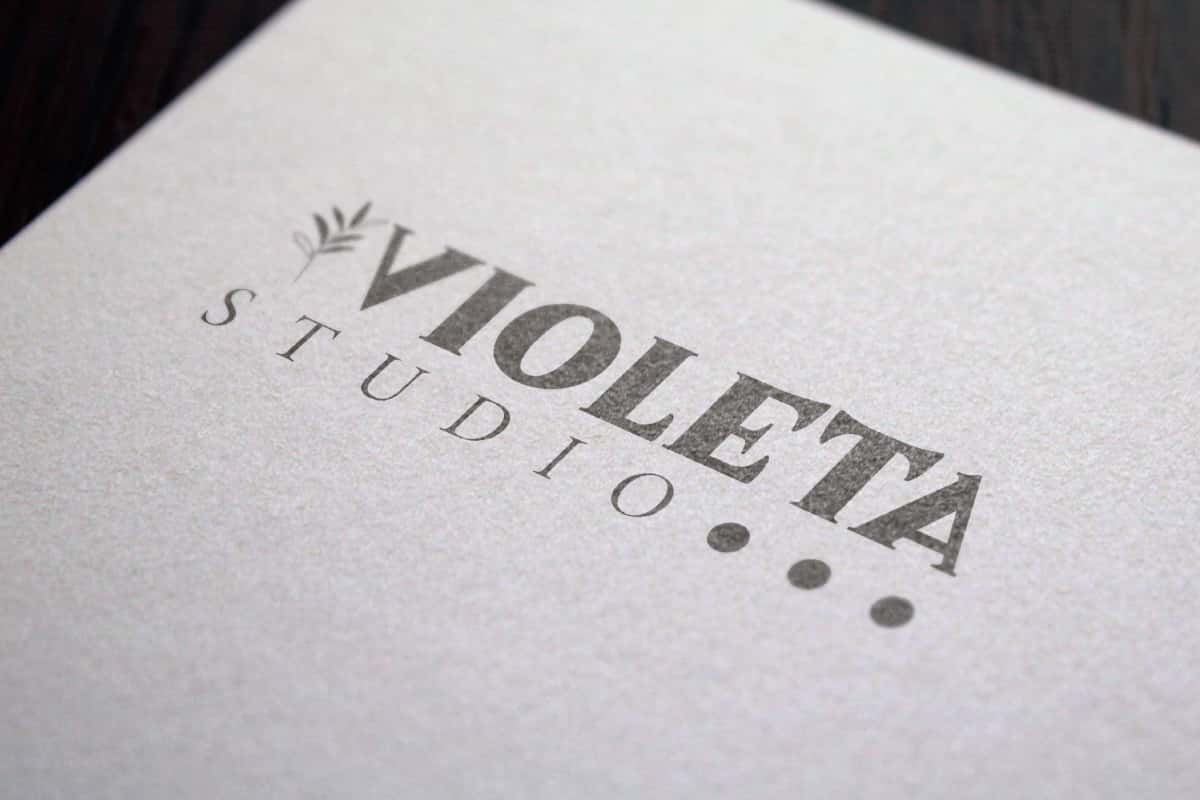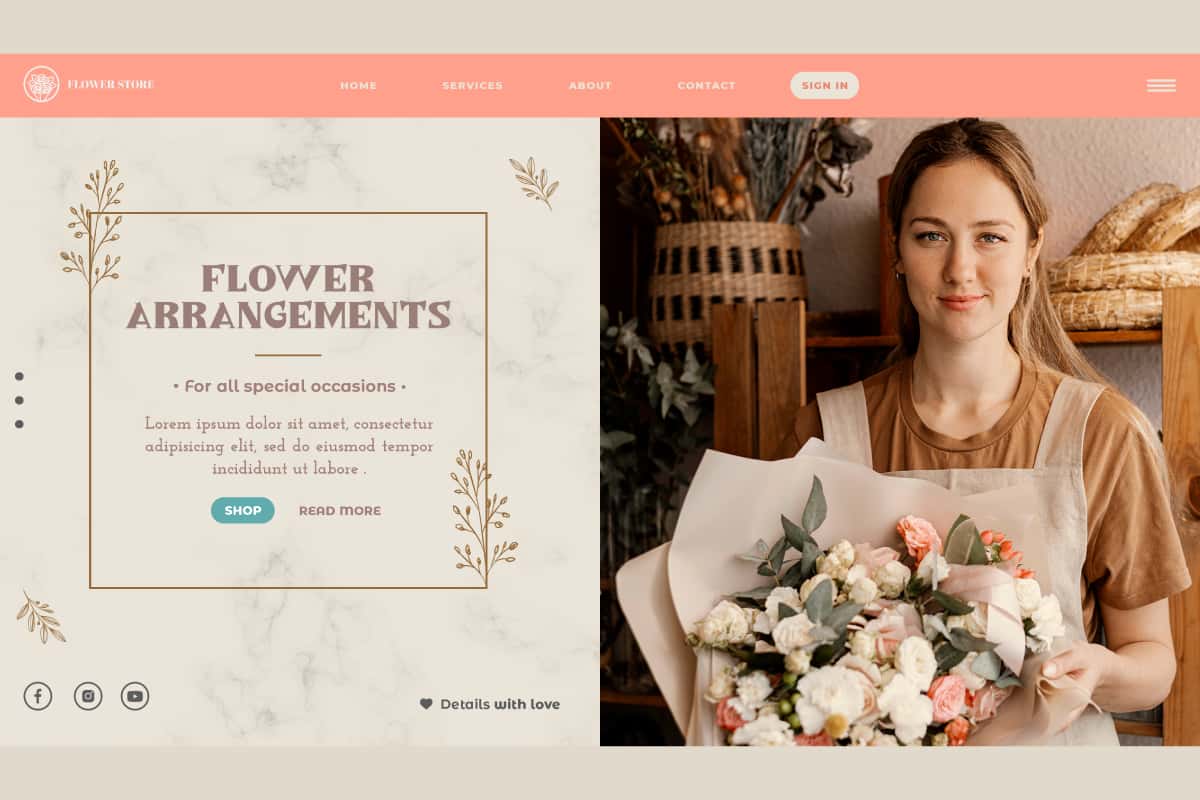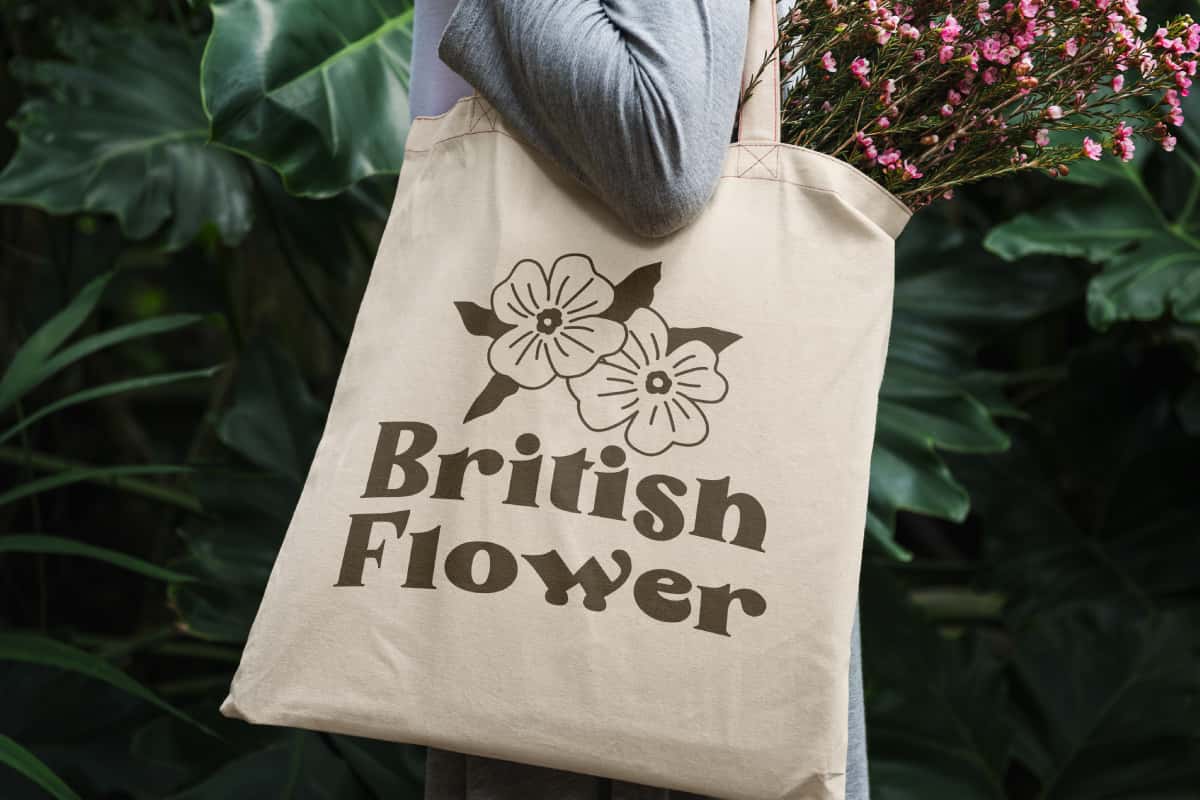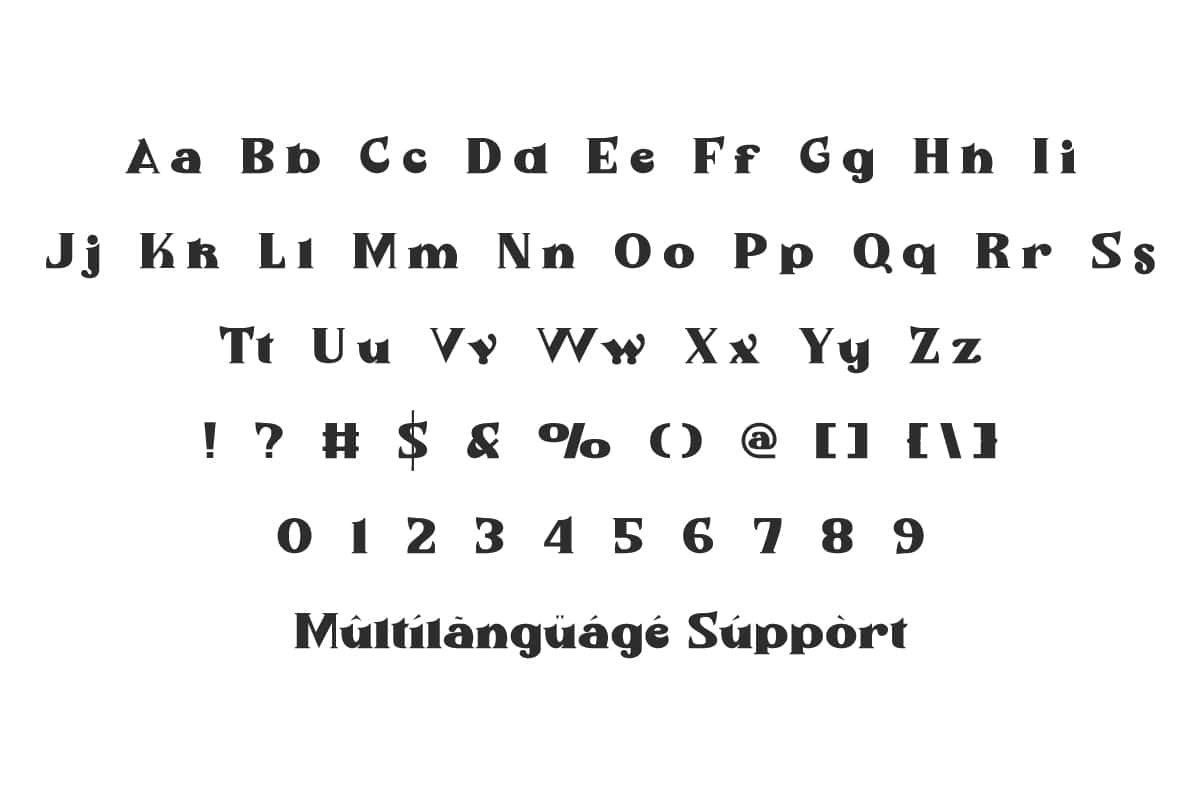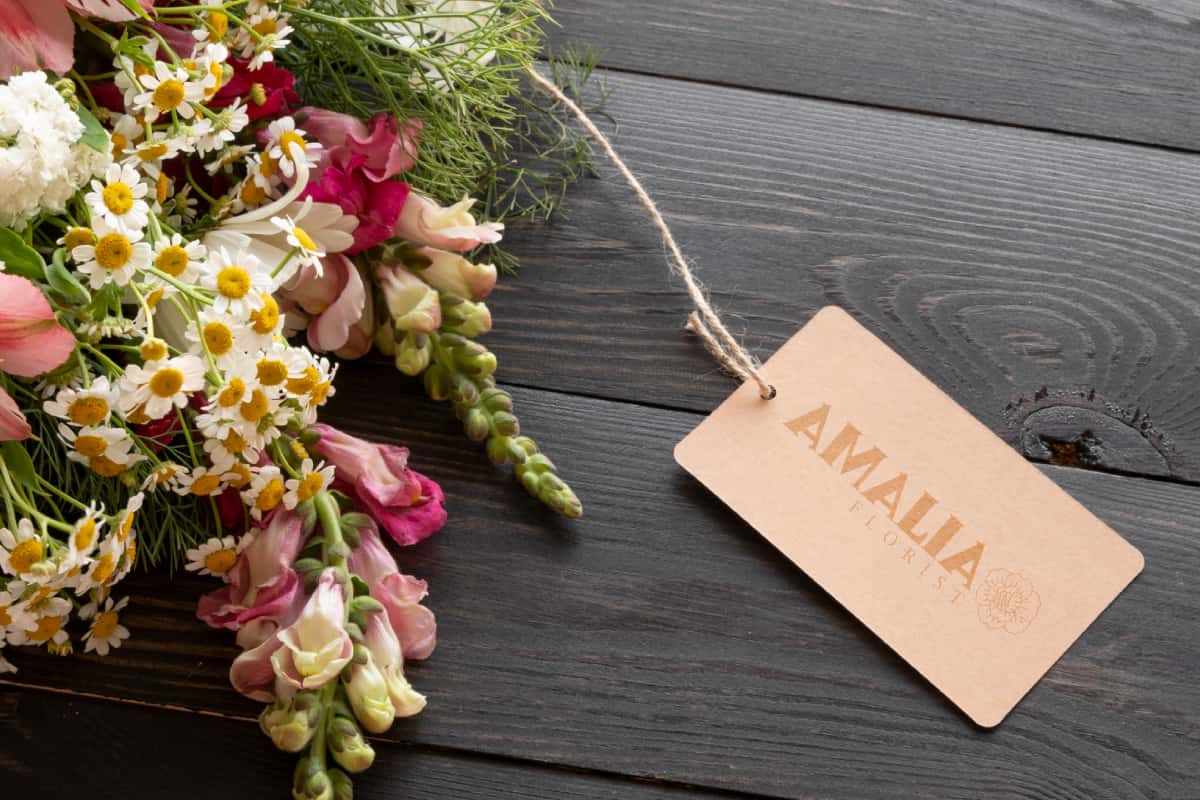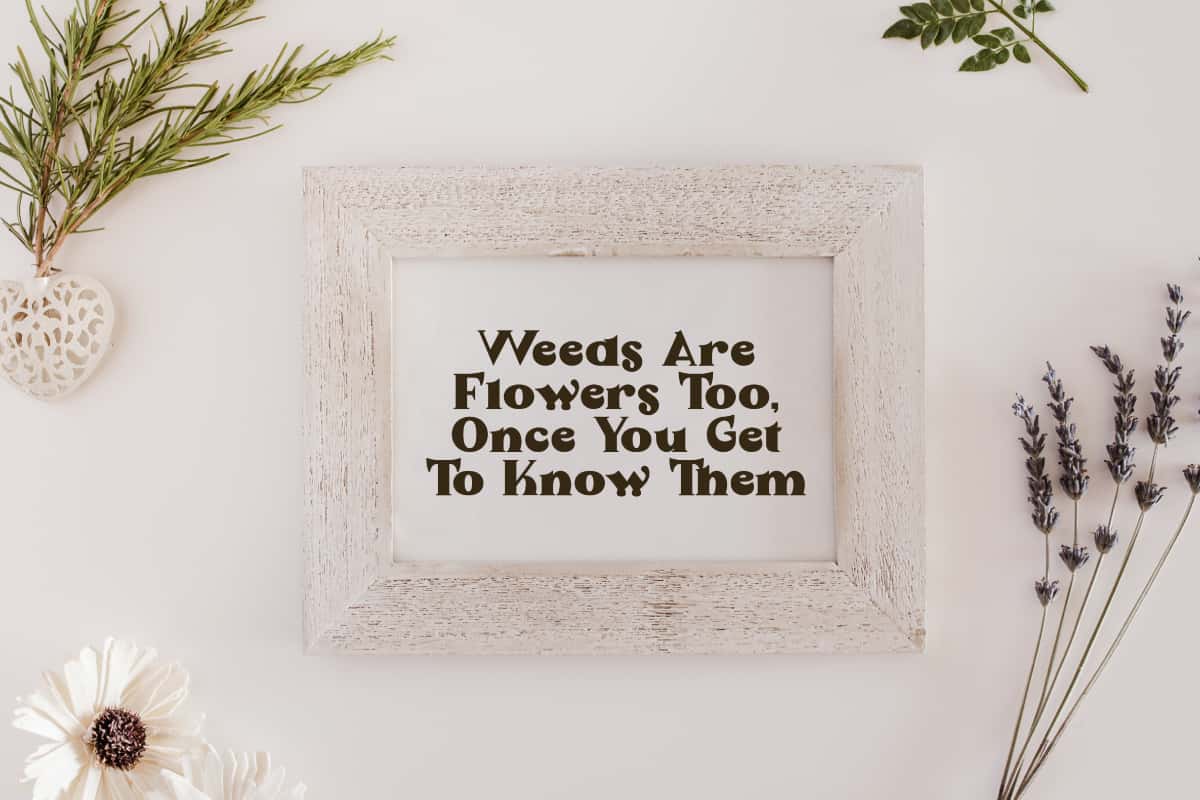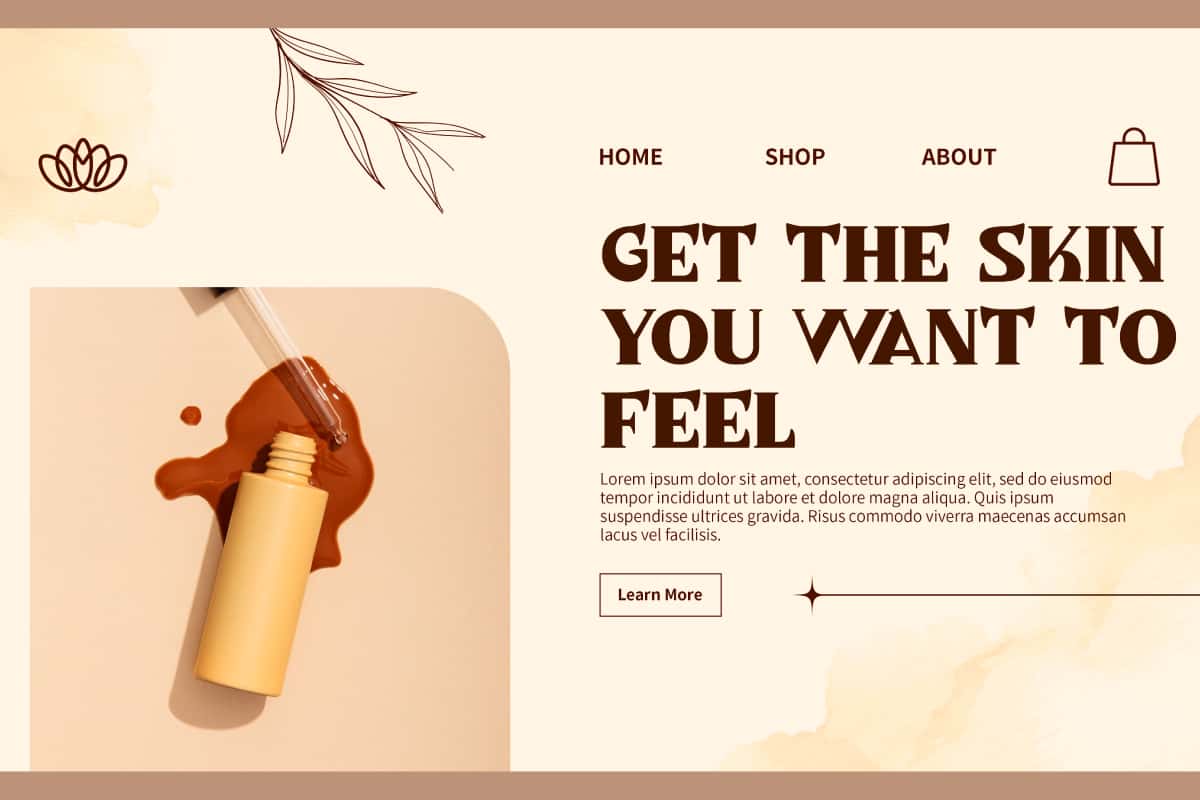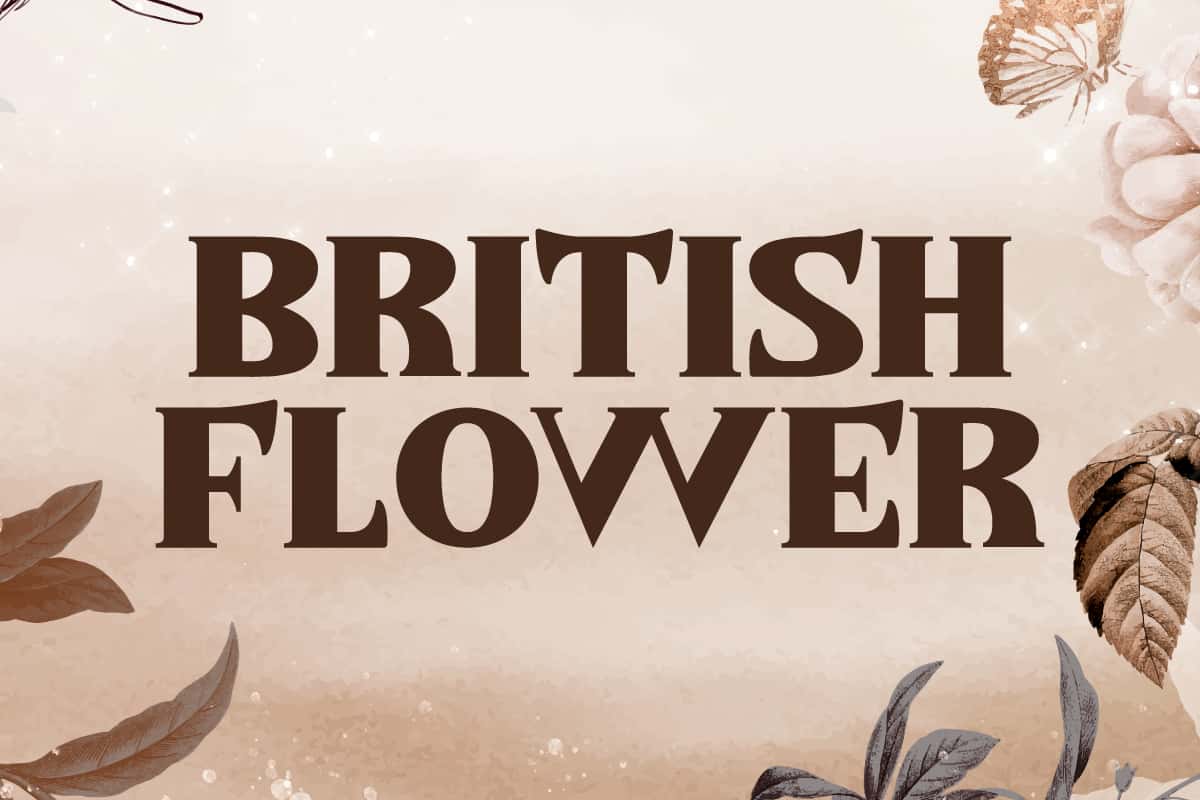
British Flower Font is a meticulous serif that combines classic charm with contemporary style. Perfect for cosmetic, craft, florist, brands, etc.
British Flower Font is a unique serif display font with an elegant modern retro touch. Carefully designed to exude strength and refinement. The font will complement your various creative needs with ease and style. Perfect for banners, billboard, blogs, brand logo, brochure, embossed design, headers, label tag, mockup, poster, quotes, stationery, titles, template, website, and more.
British Flower Font includes full set of Uppercase and Lowercase Basic Characters, Numbers, Punctuation, and Symbols. Experience timeless elegance where each character is unique and aesthetically pleasing, making it ideal for creating classy and charming designs. Perfect for cafes, clothing brand, corporate, florist, graphic design, handicraft, home furniture, photo studio, restaurant, skincare, and more.